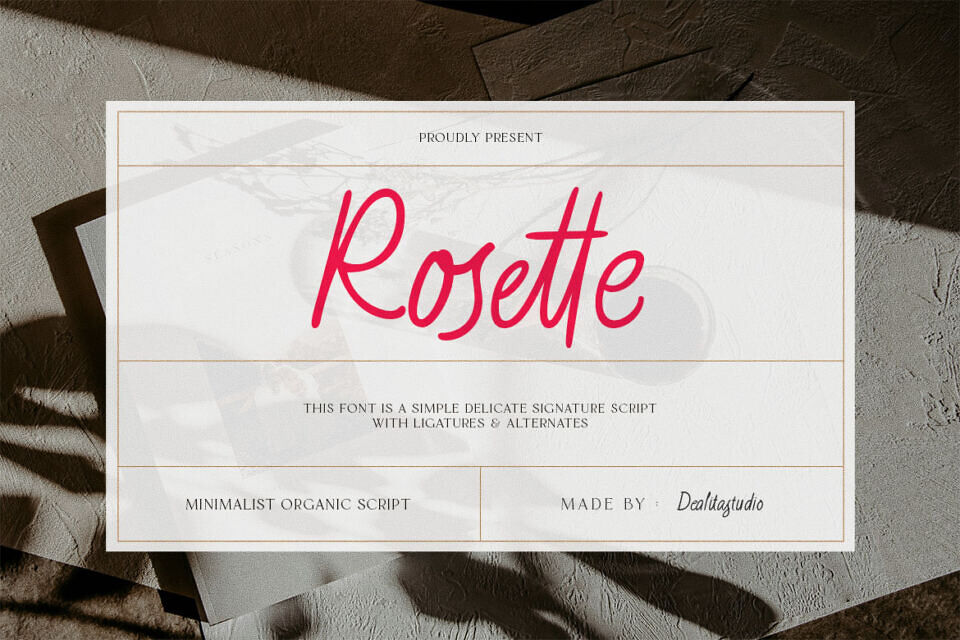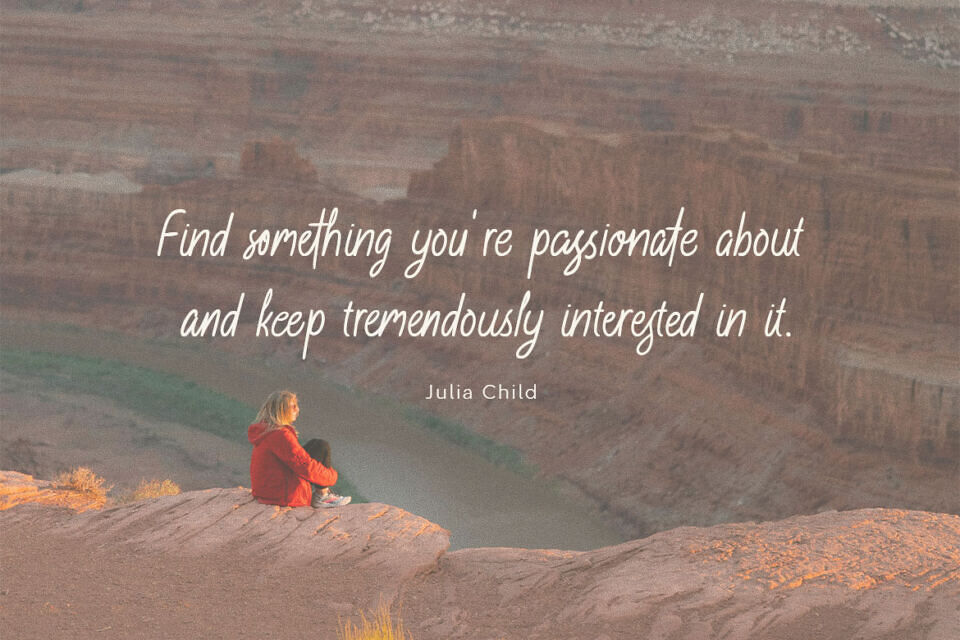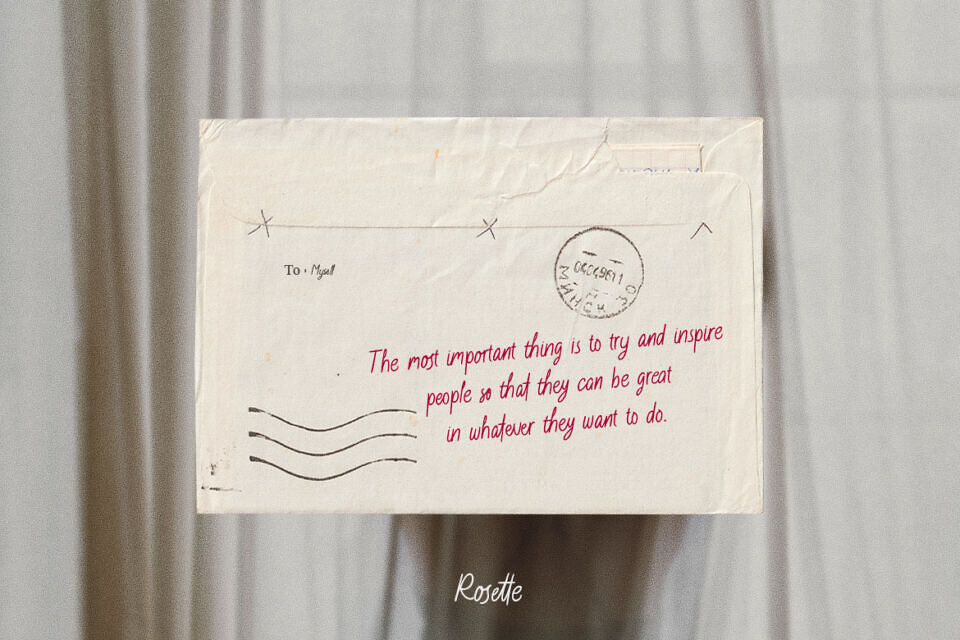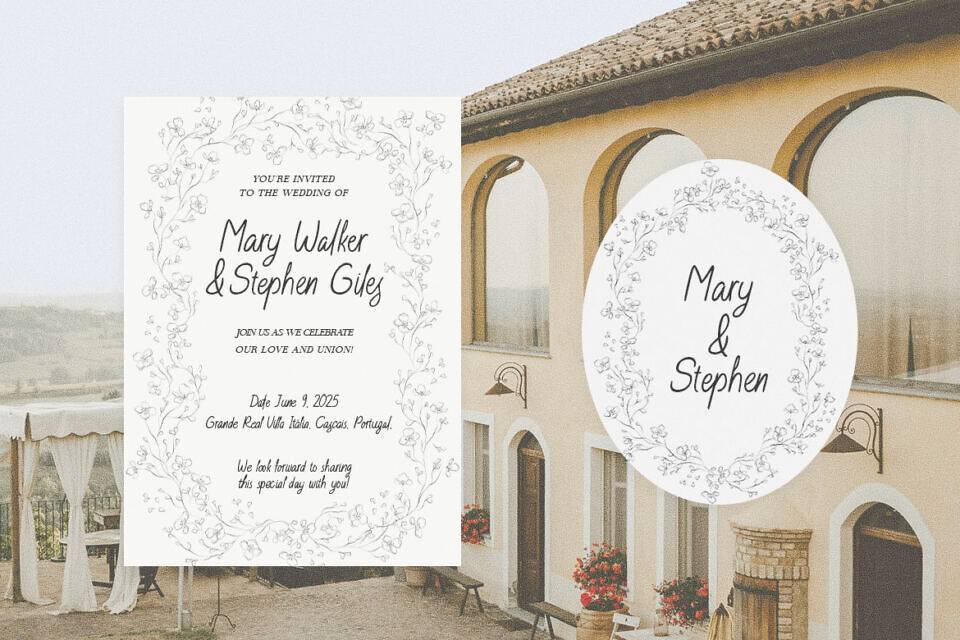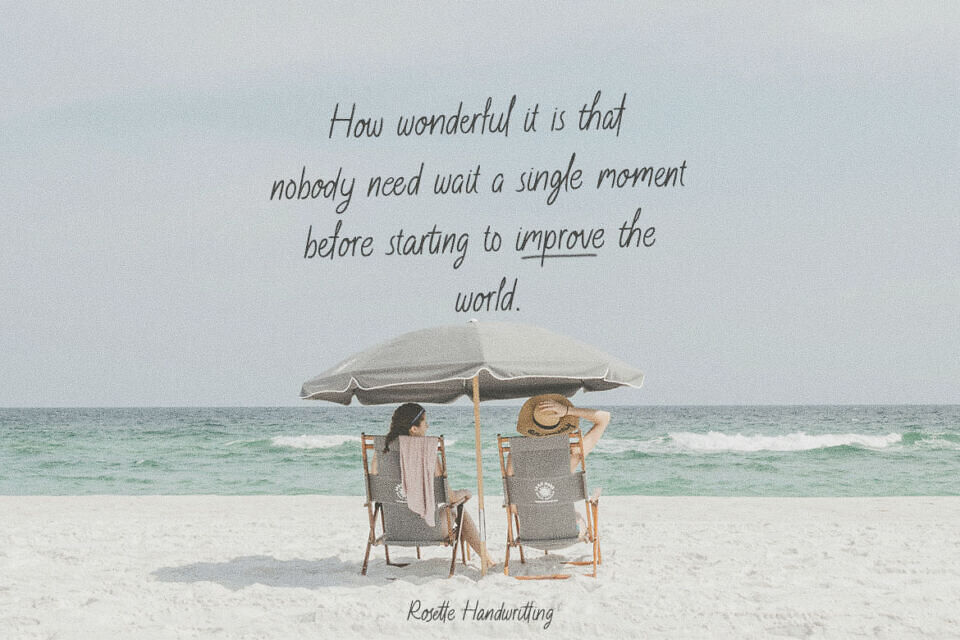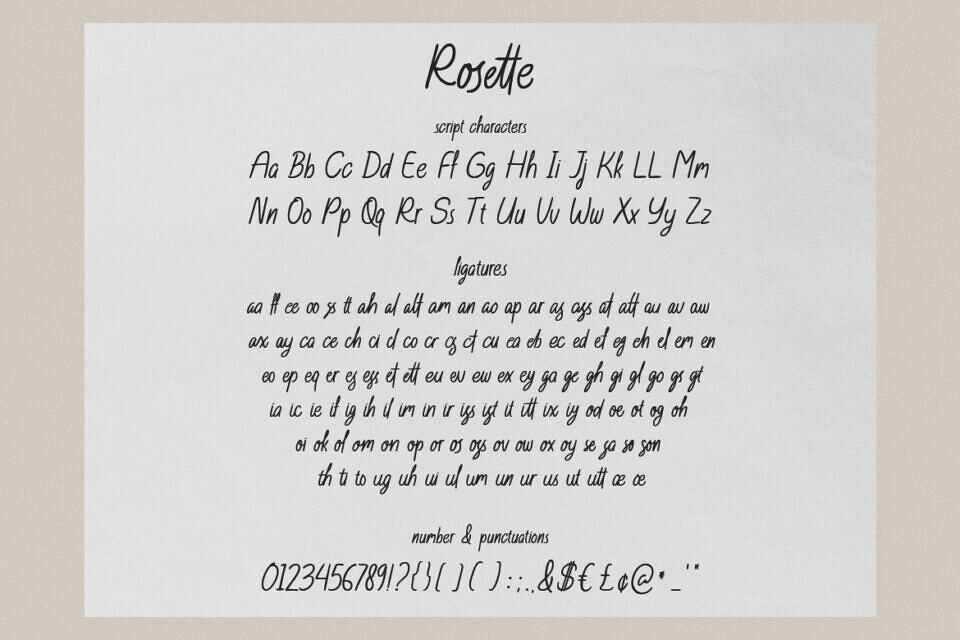
Rosette is the definitive Organic Handwritten Script Font that perfectly captures the warmth and natural rhythm of real penmanship. More than just beautiful strokes, it’s powered by a 117-ligature engine, making it one of the most fluid, authentic handwritten fonts available. Every connection feels intentional, alive, and effortlessly human—essential for premium design where authenticity is key.